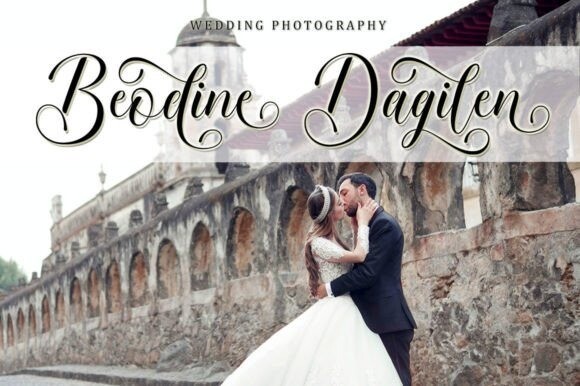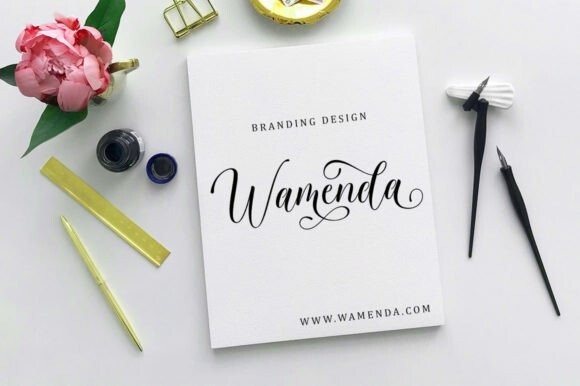
Blandore Font
Blandore Script is one of the Modern Calligraphy script fonts that comes with a very beautiful character change, a type of classic copper decorative script with a modern touch, designed with high detail to present an elegant style.
Blandore Script is interesting because the typeface is pleasing to the eye, clean, feminine, sensual, glamorous, simple and very easy to read, because of the many luxurious letter connections. I also offer a number of decent stylistic alternatives for some of the letters. Classic style is very suitable to be applied in various formal forms such as invitations, labels, restaurant menus, logos, fashion, make up, stationery, novels, magazines, books, greeting/wedding cards, packaging, labels or all kinds of advertisements. aim. . .